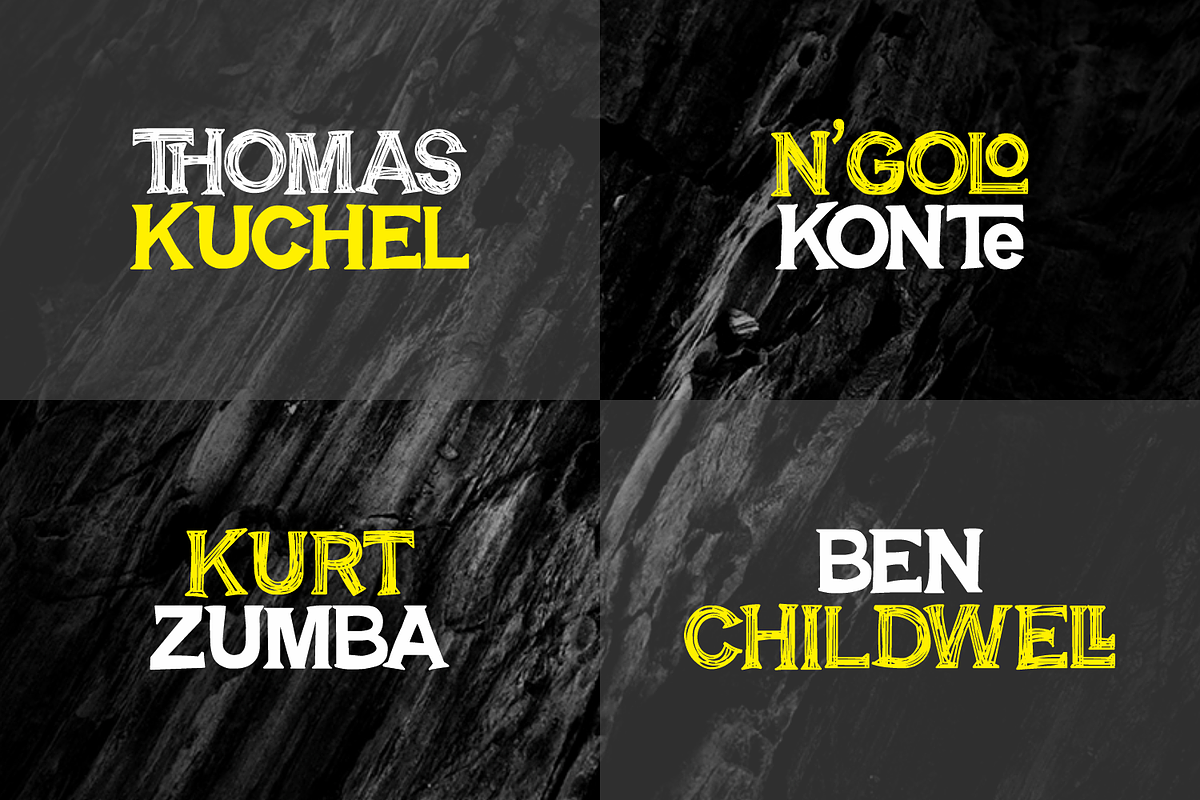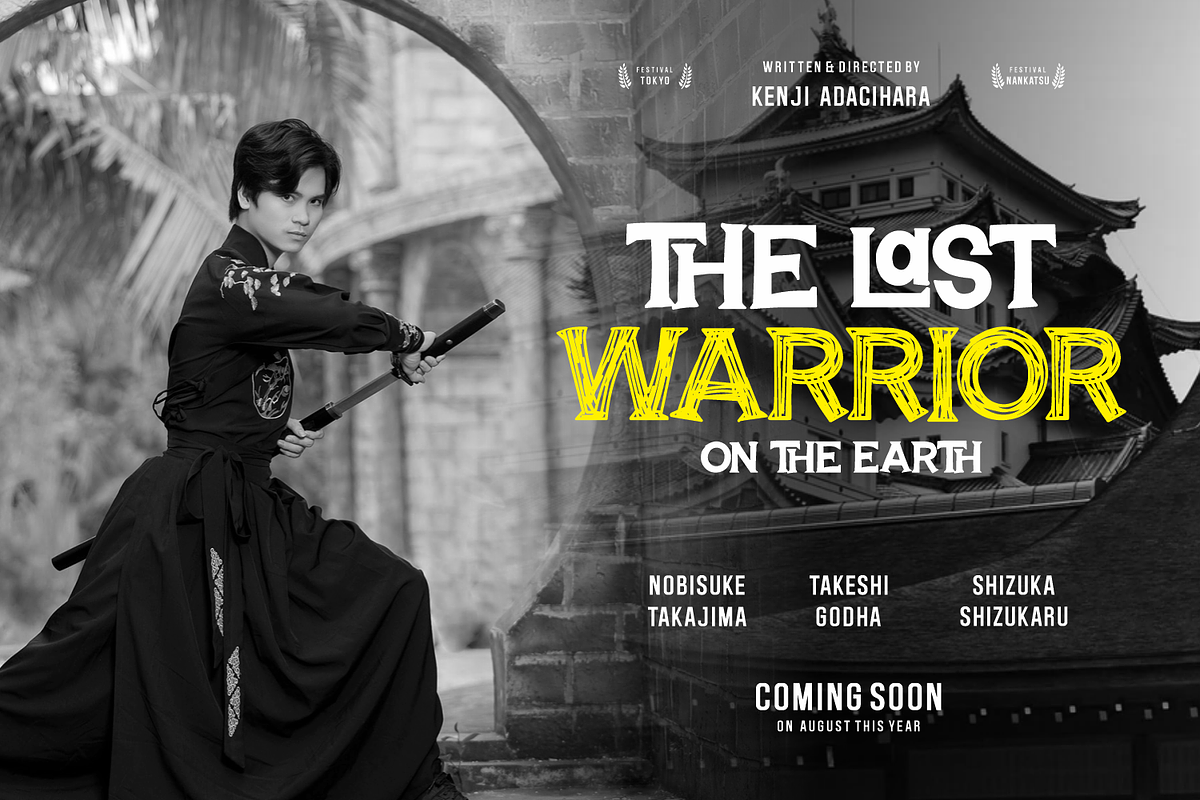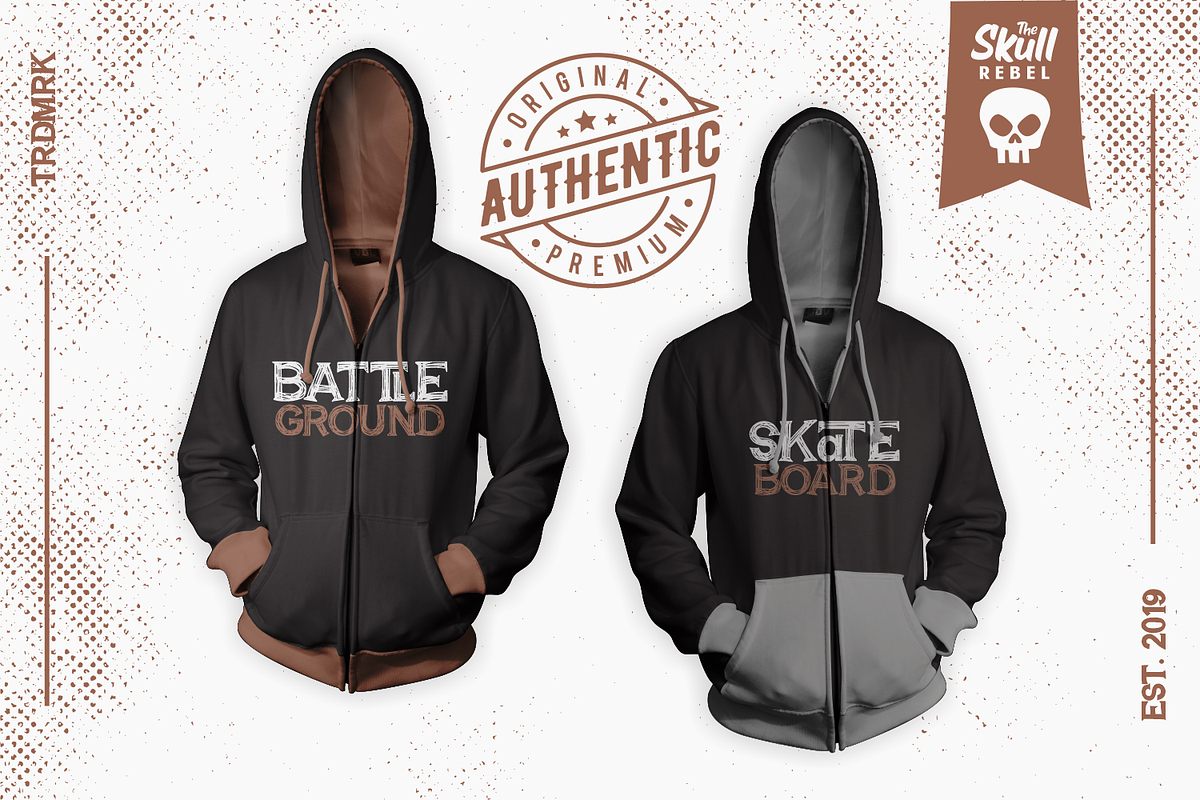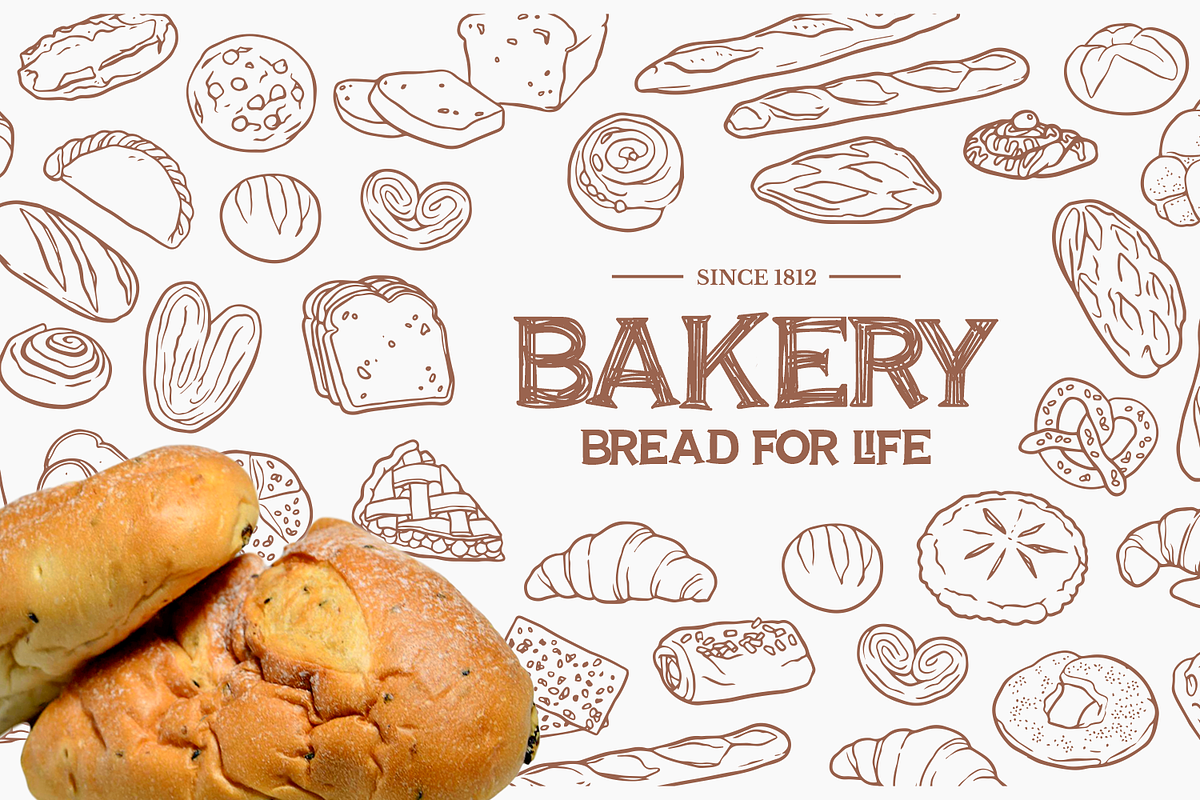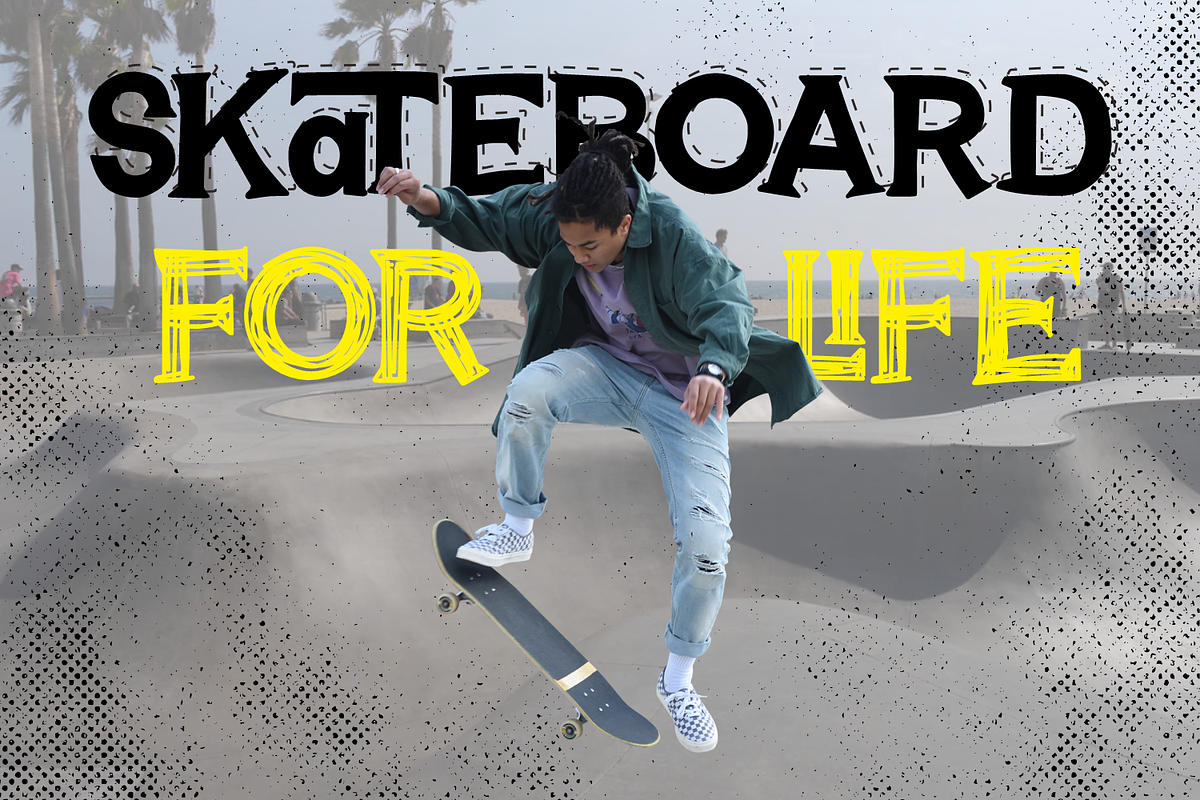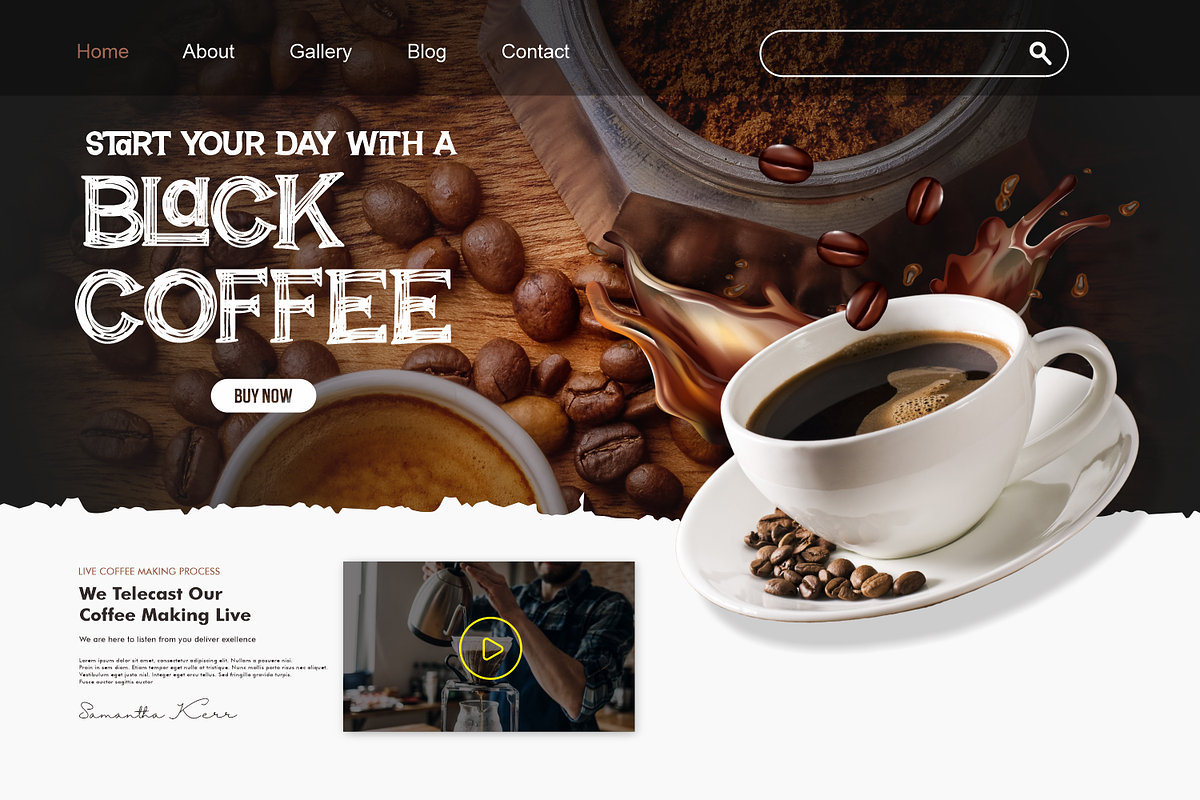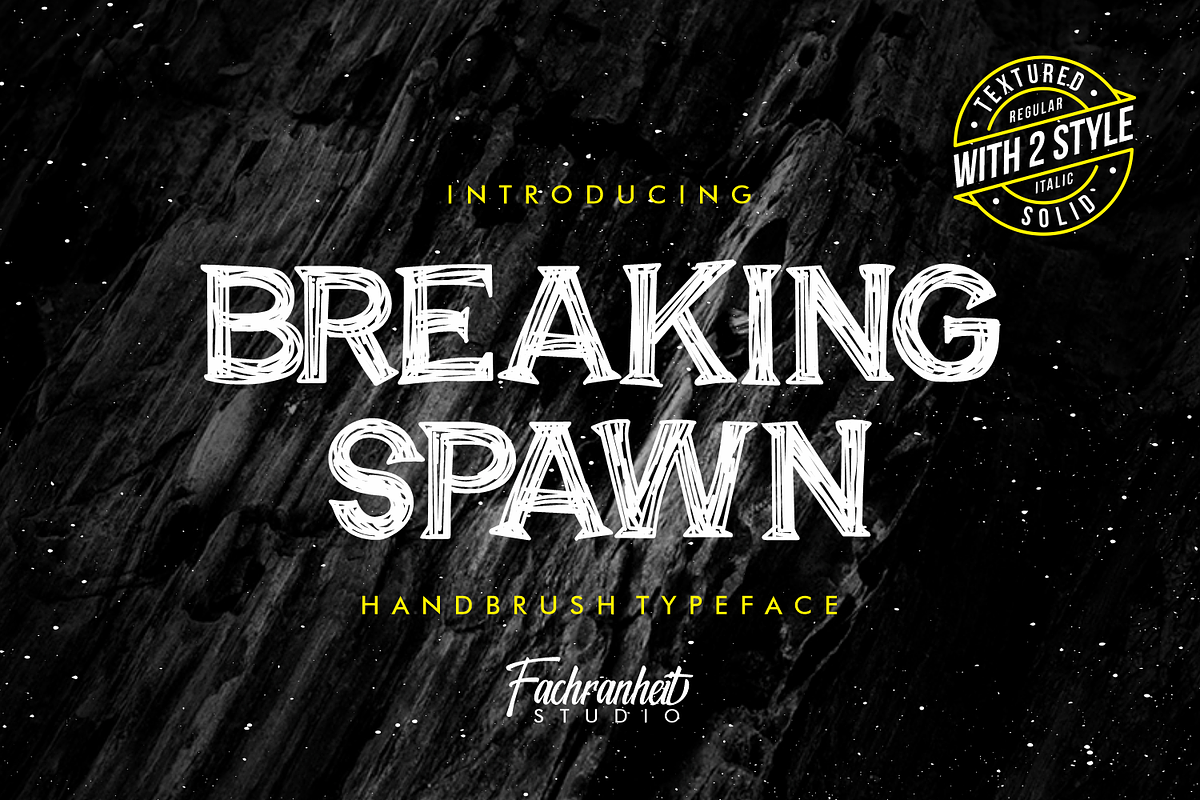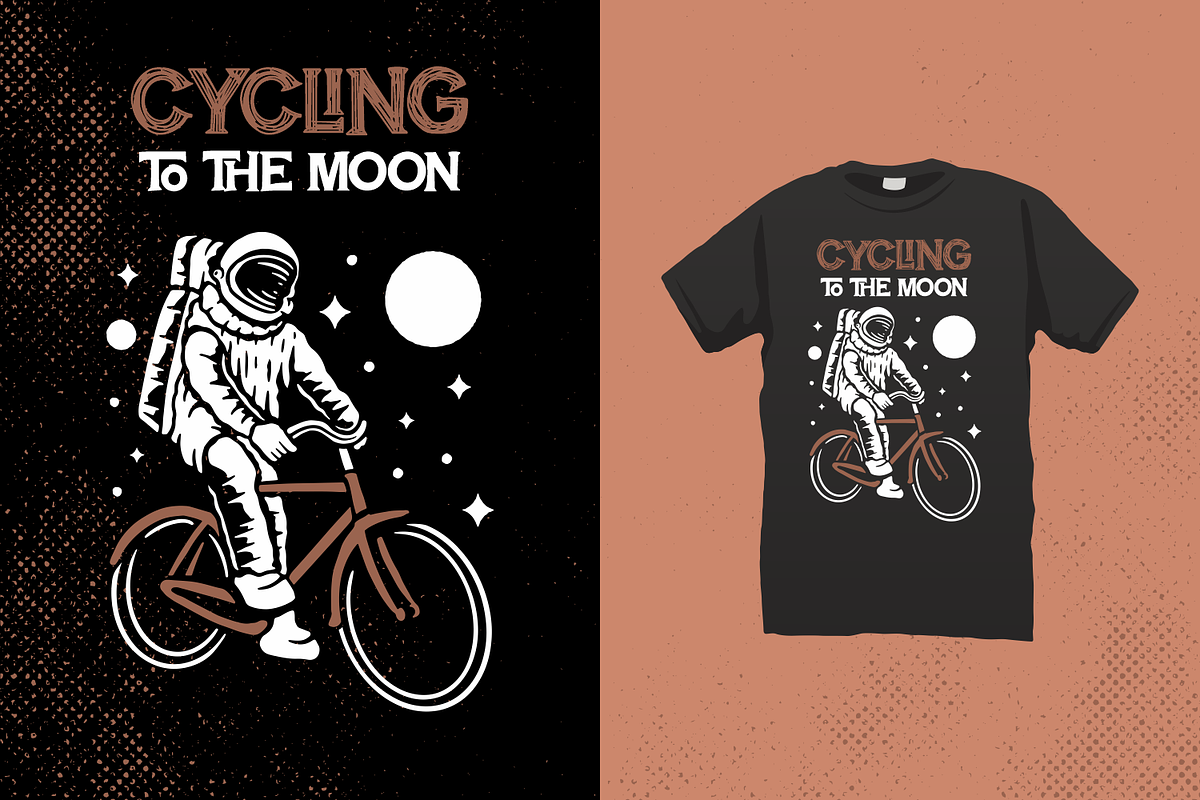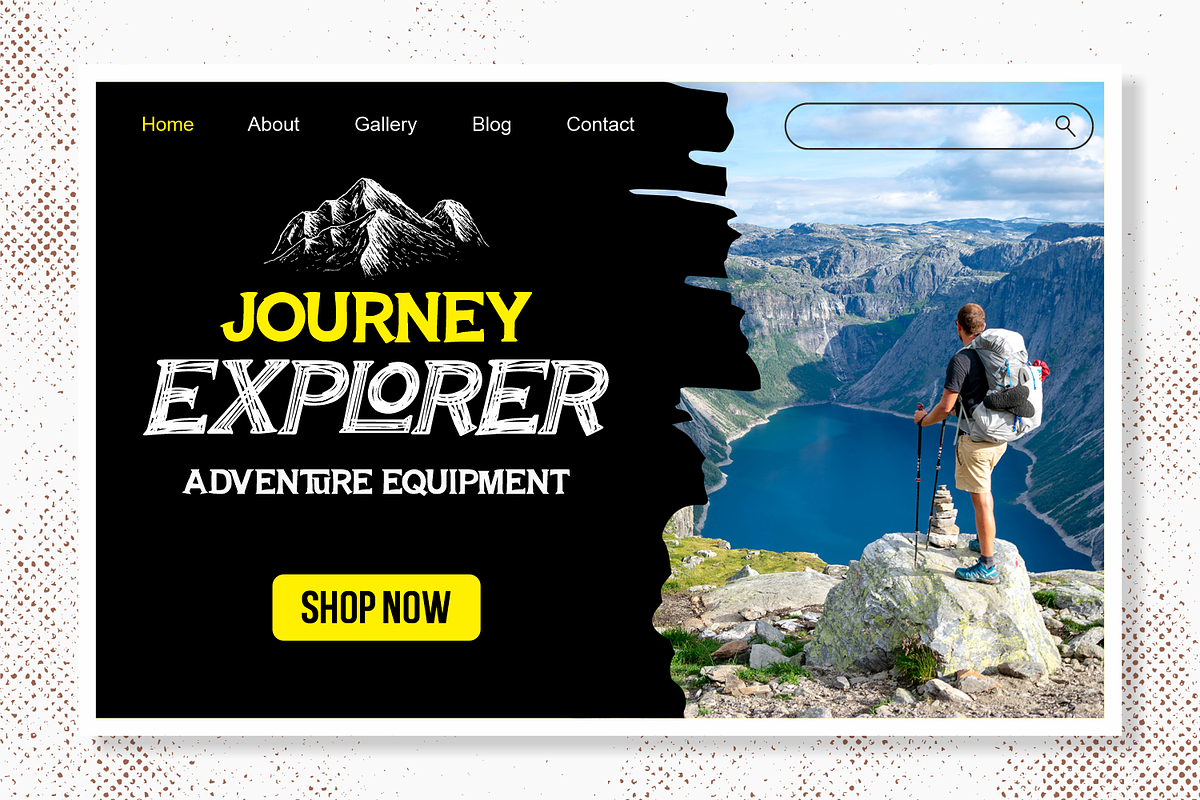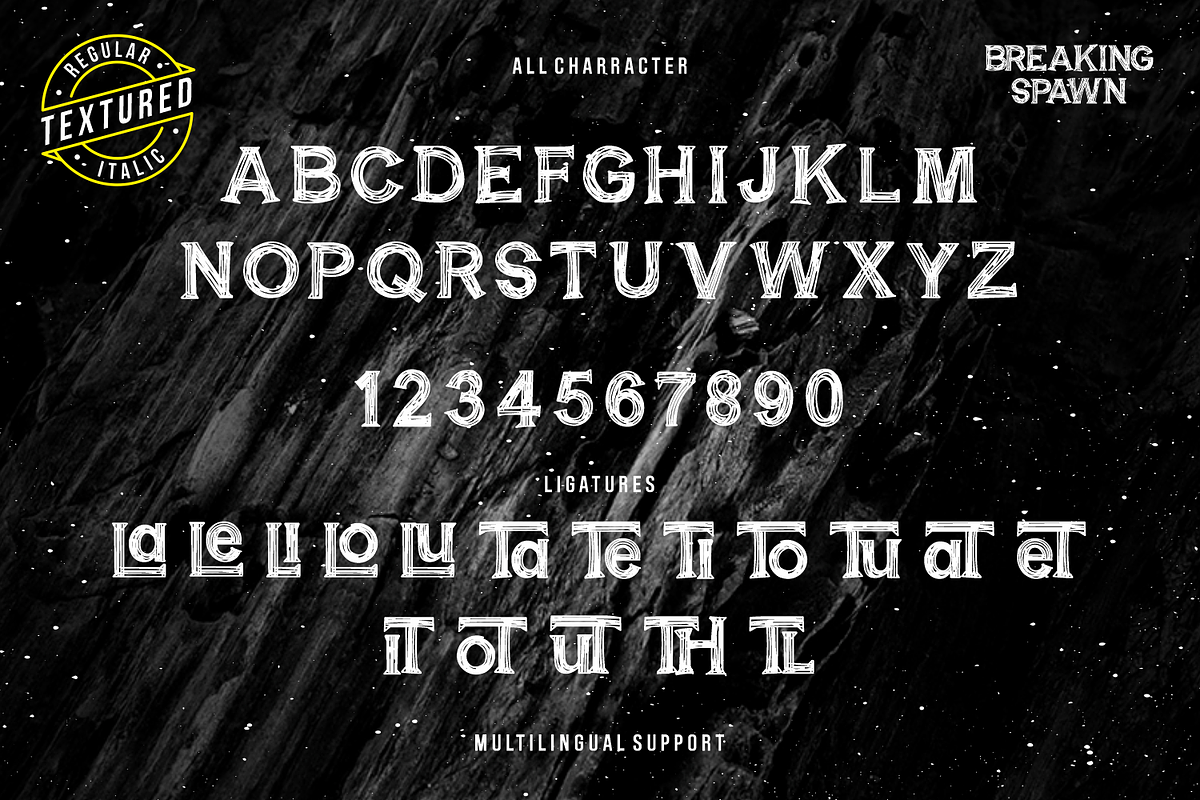
Breaking Spawn
Breaking Spawn is a handbrush typeface font. It can easily be matched to an incredibly large set of projects and use it for movie posters, flyers, headline, logo, logotype, packaging and much more!, so add it to your creative ideas and notice how it makes them stand out!
Here come with 2 style : Textured & Solid